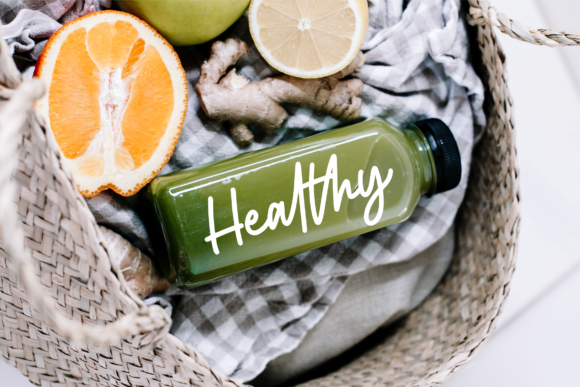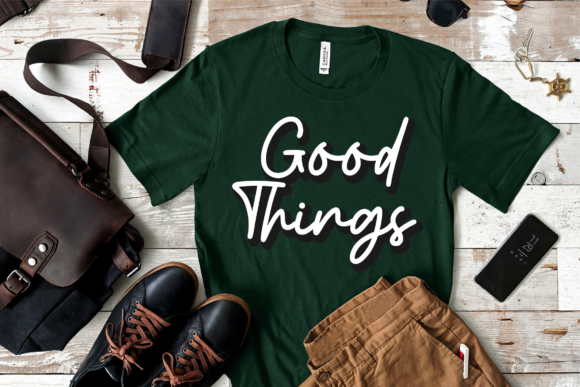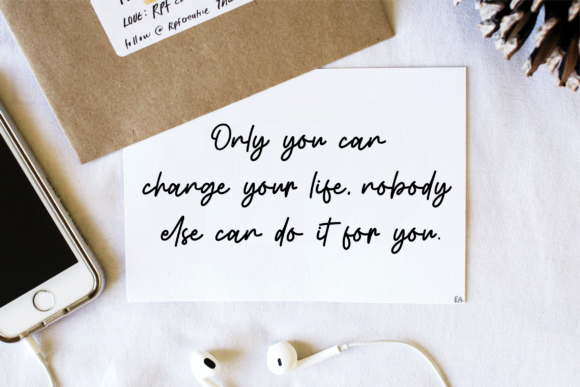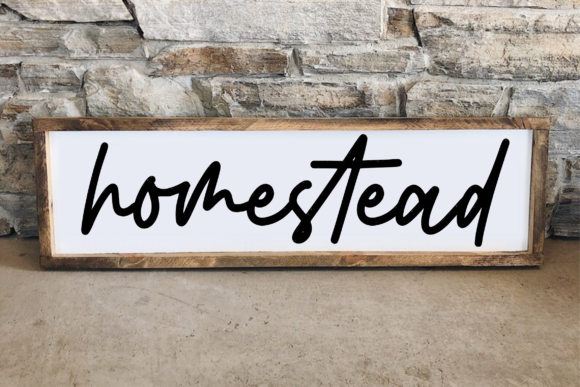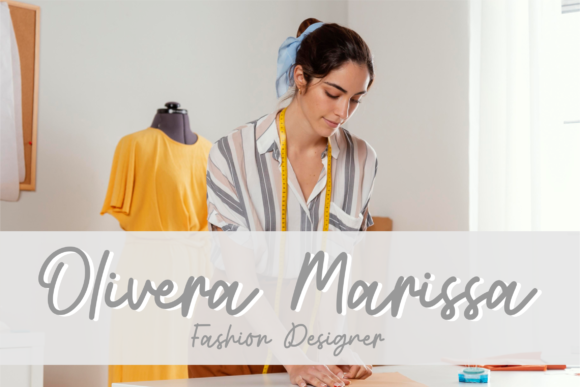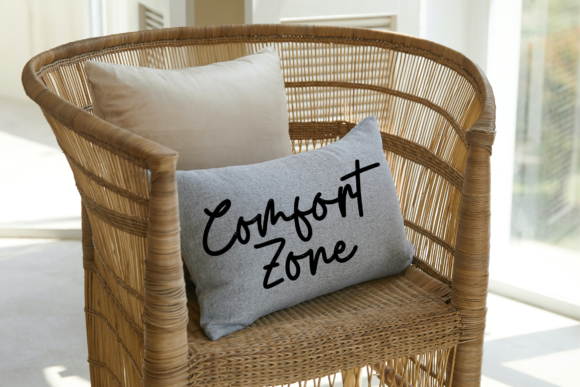
Introducing Bestfeeling Font: The Ultimate Choice for a Relaxed Touch
Are you tired of using the same old fonts for your designs? Do you want to add a touch of personality and whimsy to your creations? Look no further than Bestfeeling Font, a stylish and quirky handwritten font that’s perfect for adding a relaxed vibe to your projects.
What is Bestfeeling Font?
Bestfeeling Font is a beautiful, handwritten font that’s designed to bring a casual and informal feel to your designs. Its unique and quirky style makes it perfect for a wide range of projects, from social media graphics and blog posts to branding and packaging.
Key Features of Bestfeeling Font
- Handwritten style: Bestfeeling Font has a genuine, handwritten look that’s perfect for adding a personal touch to your designs.
- Informal and casual: This font is designed to be relaxed and laid-back, making it perfect for projects that require a friendly and approachable feel.
- Quirky and stylish: Bestfeeling Font has a unique and stylish aesthetic that’s sure to make your designs stand out.
- Easy to read: Despite its quirky style, Bestfeeling Font is easy to read and understand, making it perfect for body text and headlines.
Who is Bestfeeling Font for?
Bestfeeling Font is perfect for designers, crafters, and anyone who wants to add a touch of personality to their creations. Whether you’re a professional designer or a DIY enthusiast, this font is sure to become a go-to choice for your projects.
Use Cases for Bestfeeling Font
Bestfeeling Font is versatile and can be used for a wide range of projects, including:
- Social media graphics: Add a relaxed and casual touch to your social media graphics, including Facebook posts, Instagram stories, and Twitter headers.
- Blog posts: Use Bestfeeling Font to add a personal touch to your blog posts and make them more engaging for your readers.
- Branding and packaging: This font is perfect for branding and packaging projects that require a friendly and approachable feel.
- DIY projects: Bestfeeling Font is also perfect for DIY enthusiasts who want to add a touch of personality to their craft projects, such as handmade cards and gift tags.
Tips for Using Bestfeeling Font
Here are some tips for getting the most out of Bestfeeling Font:
- Use it for headlines and body text: Bestfeeling Font is easy to read and can be used for both headlines and body text.
- Experiment with colors and textures: Add some personality to your designs by experimenting with different colors and textures.
- Pair it with other fonts: Bestfeeling Font can be paired with other fonts to create a unique and stylish look.
Bestfeeling Font is a stylish and quirky handwritten font that’s perfect for adding a relaxed touch to your designs. Its informal style and casual vibe make it a go-to choice for designers, crafters, and anyone who wants to add a touch of personality to their creations. With its ease of use and versatility, Bestfeeling Font is sure to become a favorite font in your collection.